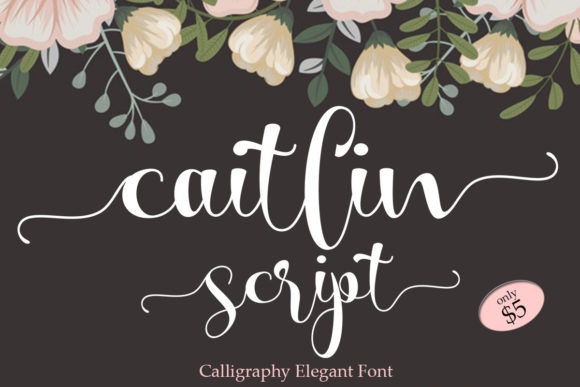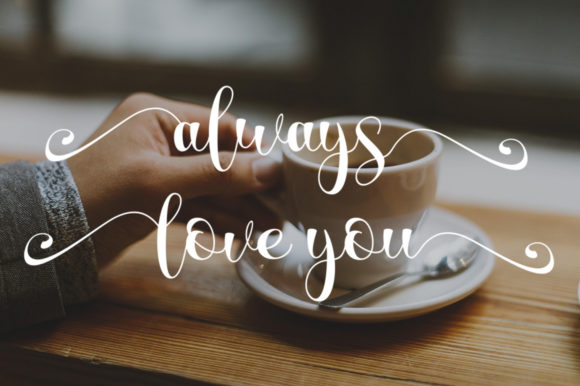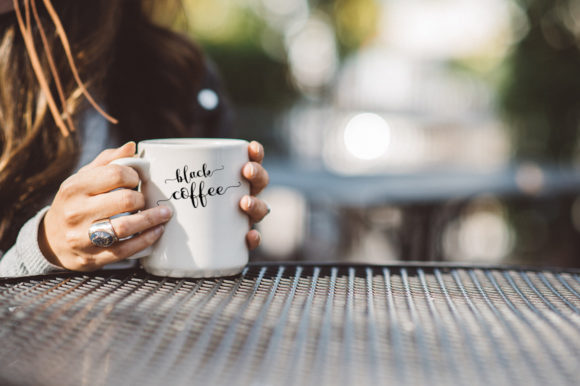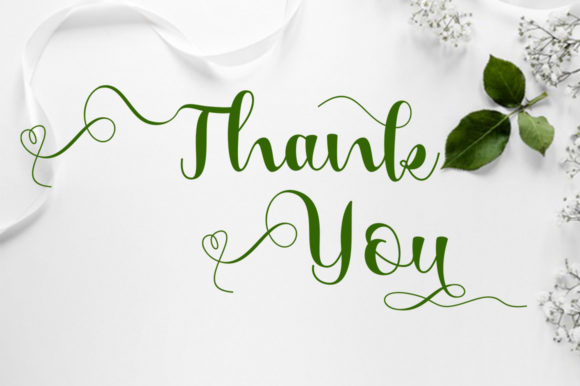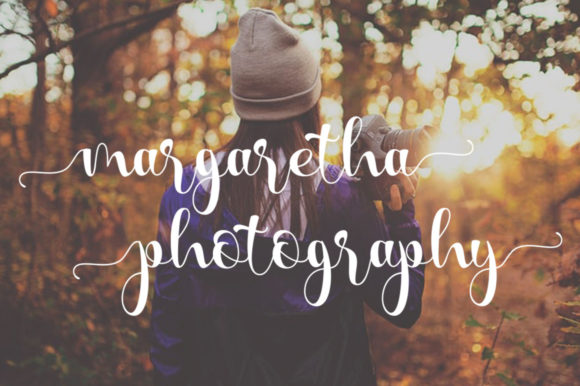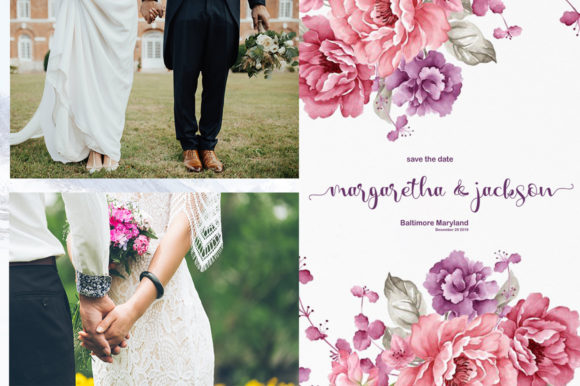
Caitlin Script Font
About Caitlin Script Font
Caitlin Script is an elegant and dainty handwritten font that features sweet and delicate swashes. This font is PUA encoded which means you can access all glyphs and swashes with ease!